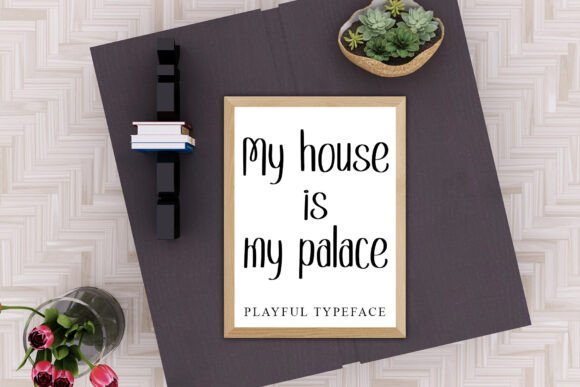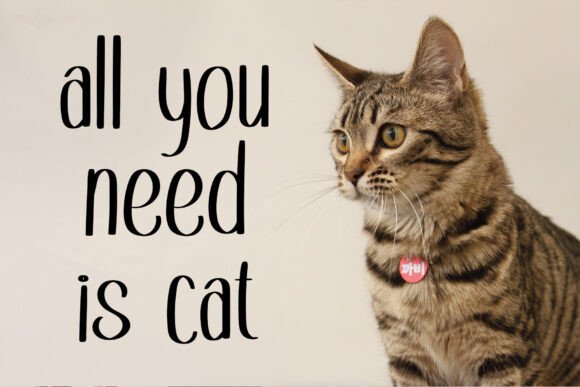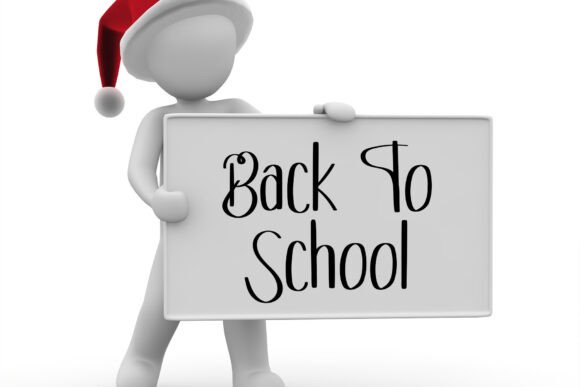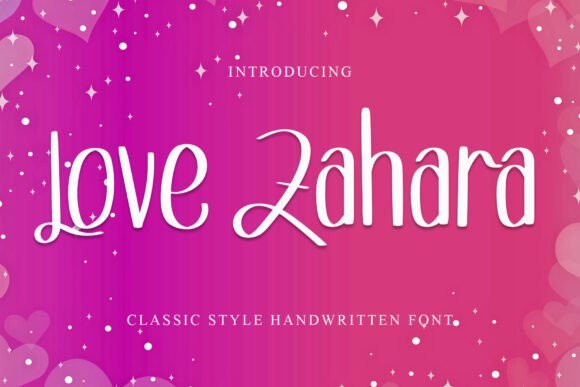
Introduction to Love Zahara Font
Love Zahara is a unique and elegant font.
Looks great on wedding invitations, greeting cards, billboards, logos, business cards, and any other design that requires a handwritten touch This font features varied baseline, created with a natural, hand-made touch.